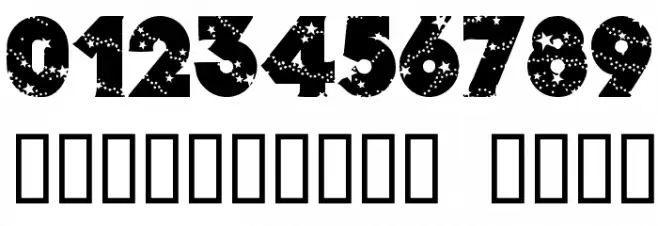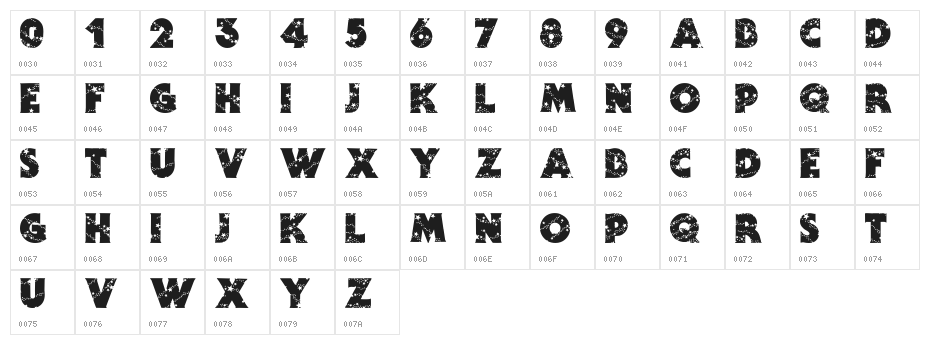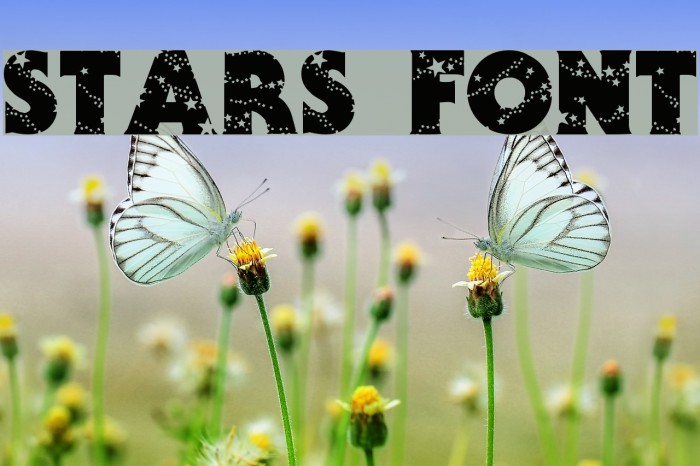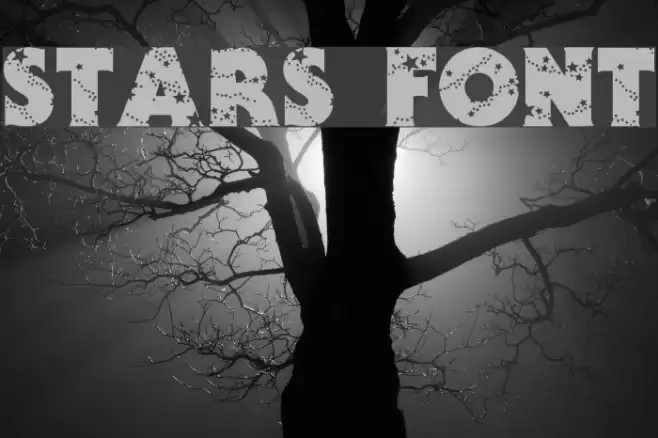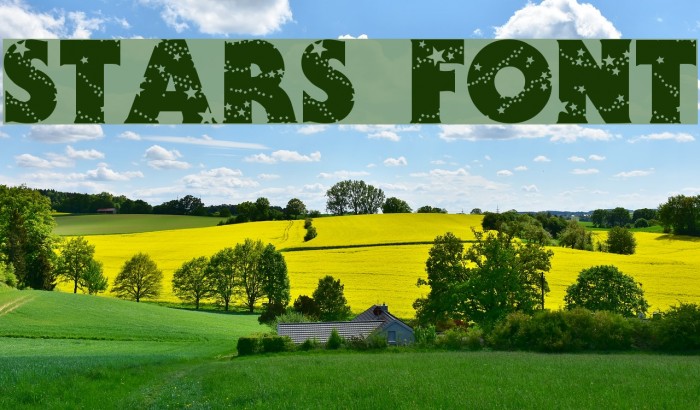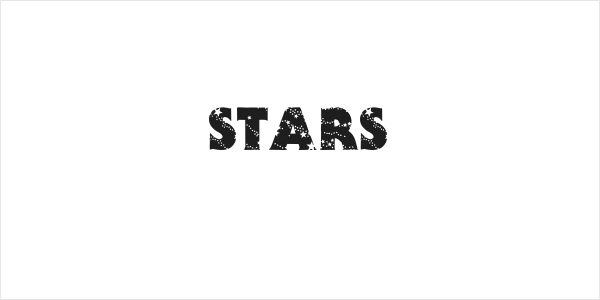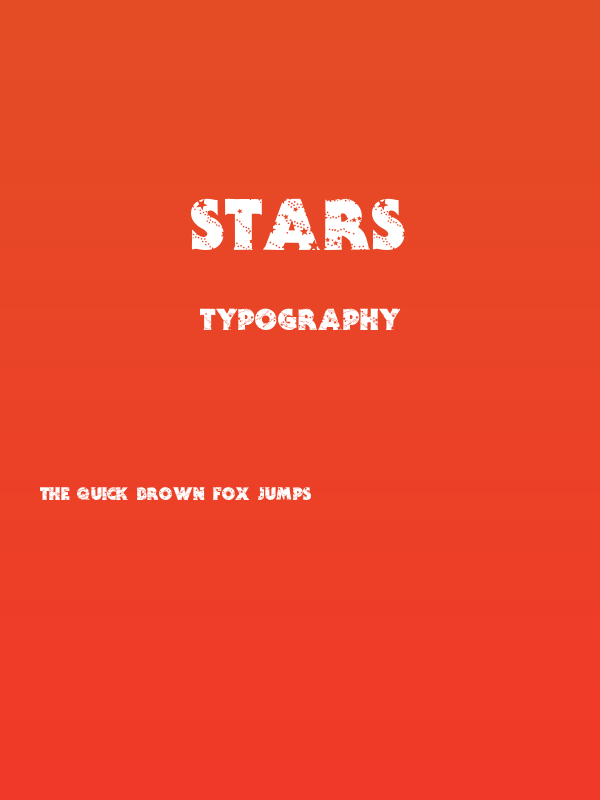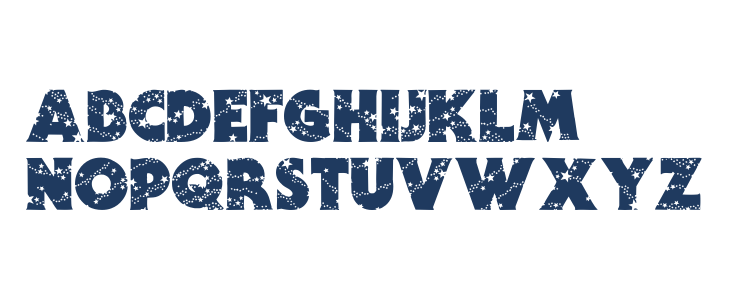
Stars Font
Stars Description
This font features a bold and decorative style with a unique starry texture embedded within each character. The uppercase and lowercase letters, along with numbers, are designed with a playful and eye-catching pattern that resembles a night sky filled with stars. The characters are bold and have a substantial presence, making them ideal for attention-grabbing designs. The font's decorative nature makes it suitable for creative projects where a touch of whimsy and fun is desired. The spacing between characters is normal, ensuring readability despite the intricate design.
| Proposed Projects | Ideal for children's book covers, party invitations, festive banners, and any design requiring a playful and whimsical touch. |